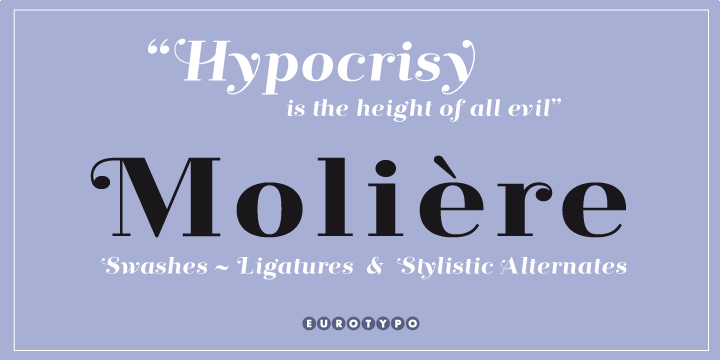
Moliere Font Free Download is an elegant and stylish serif typeface designed with a touch of classic sophistication. Its refined letterforms and graceful curves make it a perfect choice for high-end branding, invitations, editorial designs, and luxury-themed projects. The font's timeless appeal enhances the overall aesthetics of any design, giving it an air of professionalism and class.
Whether you're designing for print or digital media, Moliere's readability and elegant design make it stand out in both large headings and small body text. Its versatile nature allows it to adapt to various design styles, from traditional to contemporary.
Incorporate Moliere Font Free Download into your next project for a sophisticated and polished touch that elevates your design.